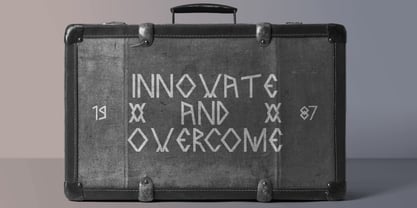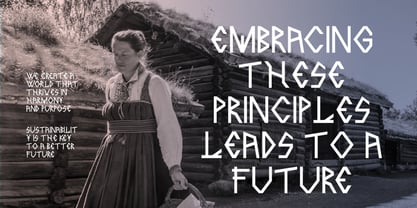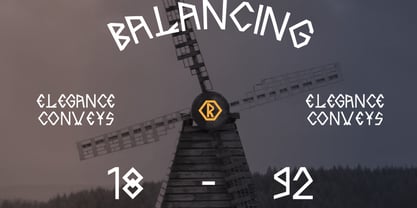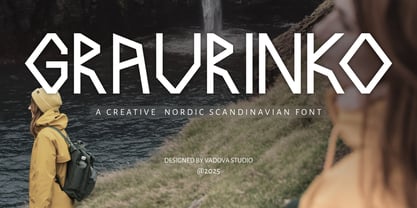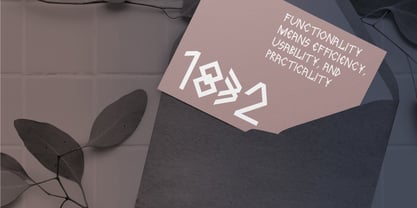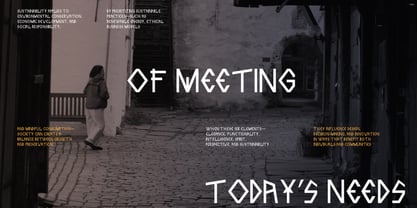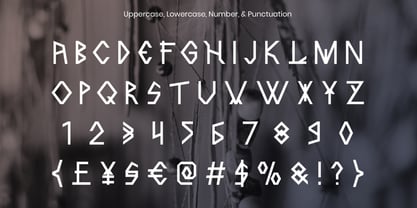
Graurinko
by Vadova Std
The Graurinko Font Family and published by Vadova Std. Graurinko contains 1 styles. More about this family
Graurinko is a creative Nordic-Scandinavian display font featuring modern geometry and a minimalist, futuristic style. Its sharp angles and structured forms make it ideal for designs that demand attention and character. Inspired by Nordic aesthetics and metro city life, this typeface is perfect for capturing a sense of solitude, motion, and modern sophistication. Perfect for headlines, logos, branding, editorial layouts, or packaging.
Relevance and Use Cases Graurinko is perfect for nordic font, scandinavian, modern futuristic, minimalist font, editorial typeface, creative portfolio, urban aesthetic, modern sans serif, modern branding, editorial layouts, digital posters, creative studio logo, visual identity, fashion advertising, music covers, urban design projects, metro signage, gallery flyers, architectural portfolios, minimalist presentation, social media quotes, art installations, futuristic branding.